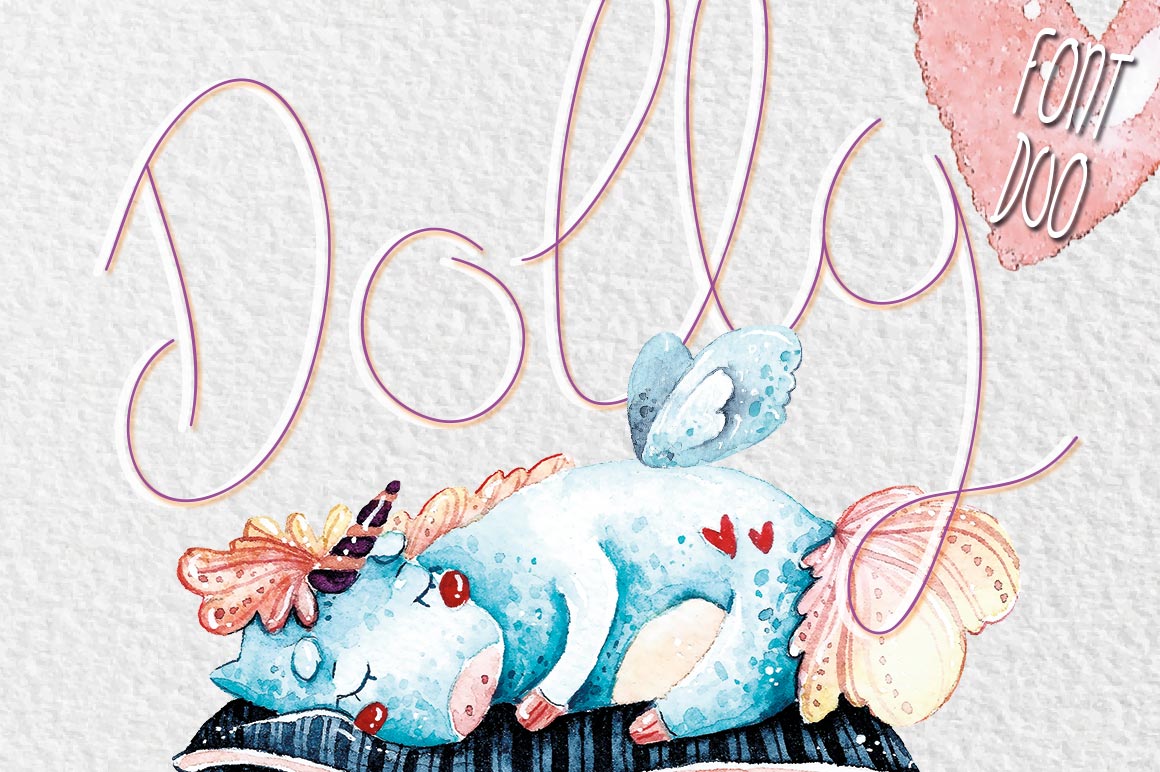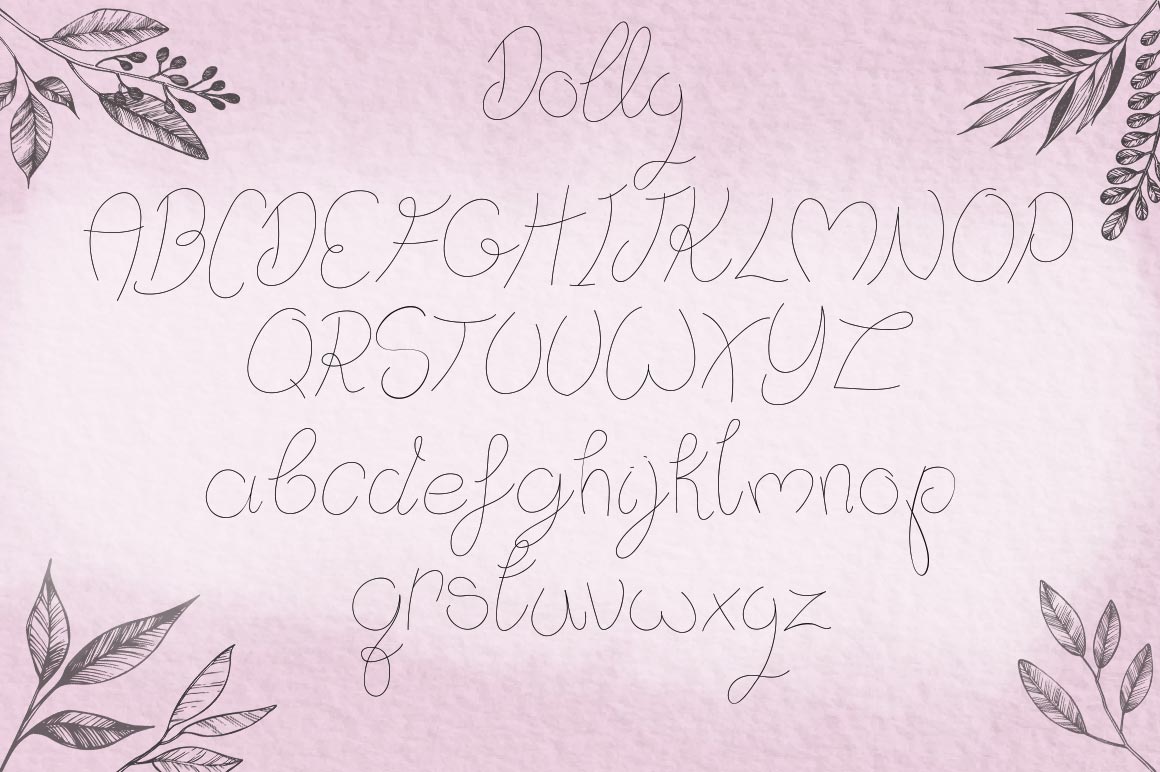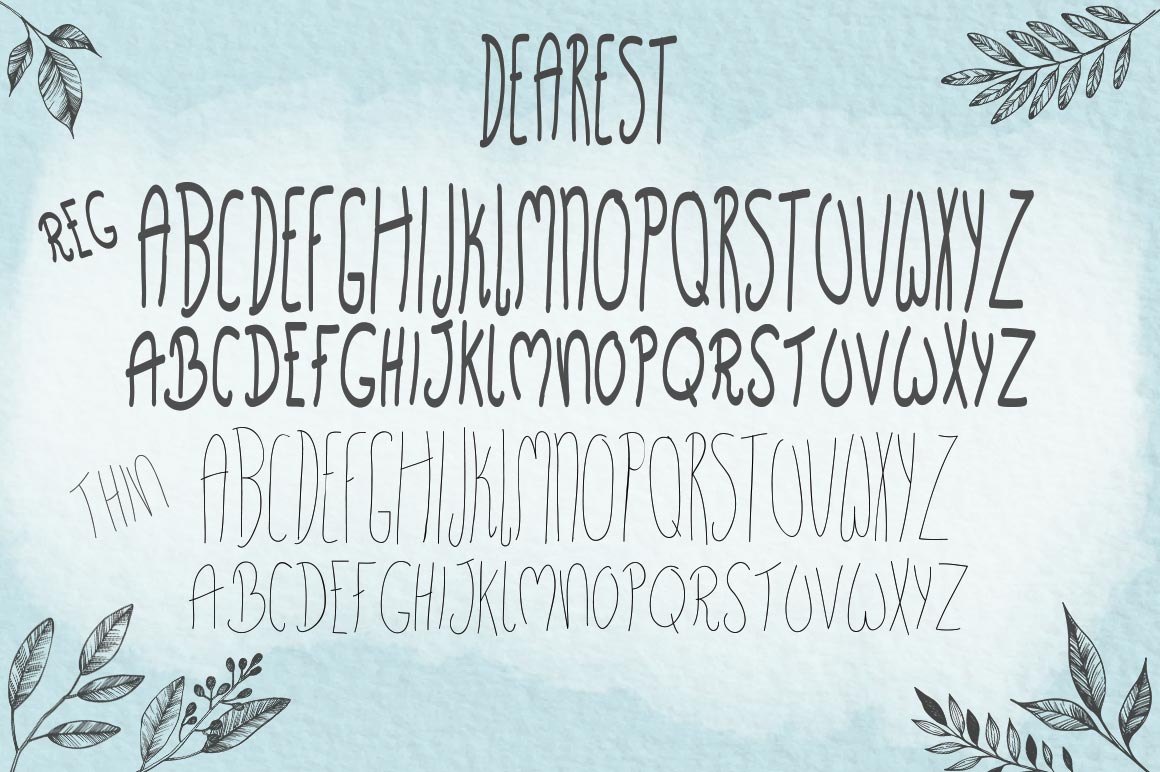
Dolly Duo Font
About Dolly Duo Font
“Dolly and Dearest are the best of friends! A perfect combo of swirly, script happiness and straight, fun sans sass. Use as a perfect pair for logos, headers and all sorts of magical designs. Use ‘¥’ for ll ligature. Enjoy! :)”